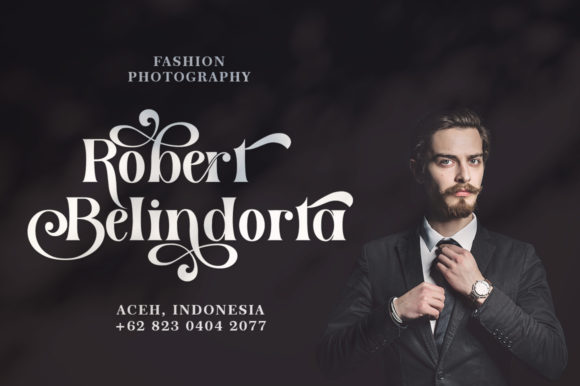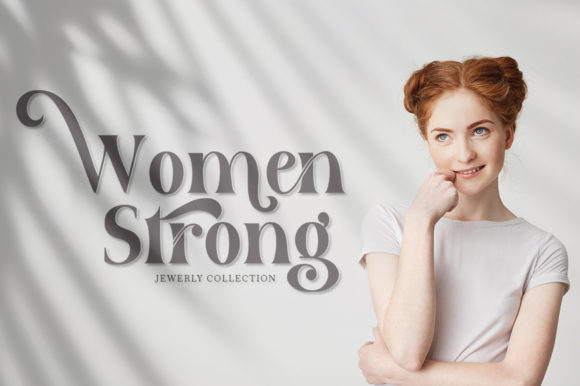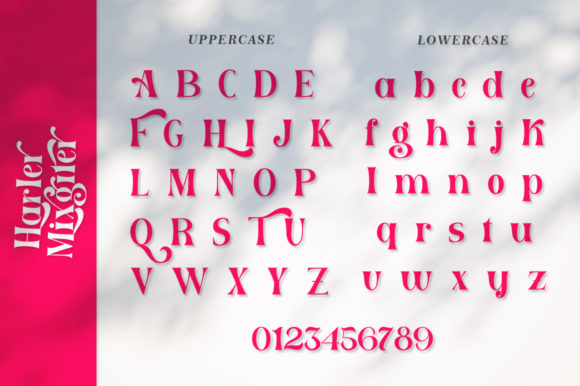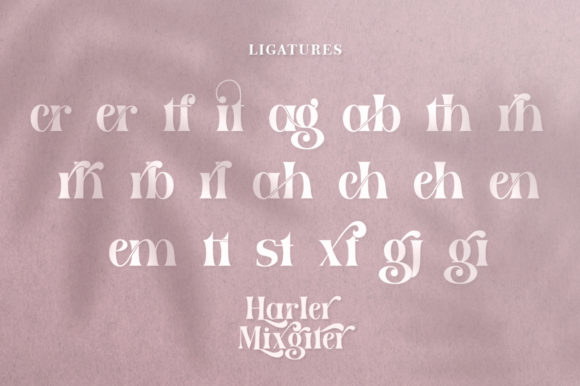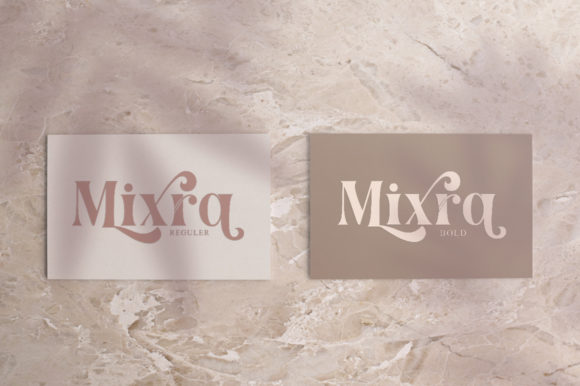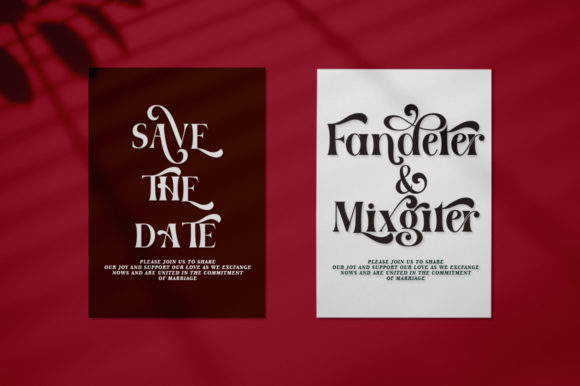
Introducing Harler Mixgiter Font: A Charming Serif Typeface for Romantic Designs
Are you a designer or crafter looking for a font that exudes classic romance and sophistication? Look no further than Harler Mixgiter Font! This beautiful serif typeface is inspired by traditional romance fonts, making it perfect for a variety of design projects, from headlines and invitations to logos and wedding materials.
What Makes Harler Mixgiter Font Special?
Harler Mixgiter Font is a unique and charming typeface that boasts a range of distinctive features. Its serif design gives it a classic, timeless feel that’s perfect for creating elegant and sophisticated designs. The font’s intricate details and ornate flourishes add a touch of romance and whimsy, making it ideal for projects that require a personal and emotional touch.
Harler Mixgiter Font is an incredibly versatile typeface that can be used for a wide range of design projects. Here are just a few ideas to get you started:
• Headlines: Use Harler Mixgiter Font to create eye-catching headlines that add a touch of elegance and sophistication to your designs.
• Invitations: Whether you’re designing wedding invitations, party invites, or formal event announcements, Harler Mixgiter Font is the perfect choice.
• Logos: Create a lasting impression with a custom logo that features Harler Mixgiter Font. This typeface is sure to help your brand stand out from the crowd.
• Weddings: Harler Mixgiter Font is a popular choice for wedding designs, including wedding invitations, ceremony programs, and wedding stationery.
Why Designers and Crafters Love Harler Mixgiter Font
So, what makes Harler Mixgiter Font so popular among designers and crafters? Here are just a few reasons:
• Unique and distinctive: Harler Mixgiter Font is a one-of-a-kind typeface that’s sure to add a touch of personality to your designs.
• Elegant and sophisticated: This font’s classic serif design and intricate details make it perfect for creating elegant and sophisticated designs.
• Highly versatile: Harler Mixgiter Font can be used for a wide range of design projects, from print materials to digital designs.
• Easy to read: Despite its ornate details, Harler Mixgiter Font is highly legible, making it perfect for body text and headlines.
Tips for Using Harler Mixgiter Font
To get the most out of Harler Mixgiter Font, here are a few tips to keep in mind:
• Use it sparingly: While Harler Mixgiter Font is beautiful, it’s best used sparingly to avoid overwhelming your design. Use it for headlines, titles, or key phrases to add emphasis and create visual interest.
• Pair it with a simple font: To create visual contrast, pair Harler Mixgiter Font with a simple, sans-serif font for body text.
• Experiment with colors: Harler Mixgiter Font looks stunning in a range of colors, from rich jewel tones to soft pastels. Experiment with different colors to find the perfect look for your design.
Font Name Harler Mixgiter Font
Harler Mixgiter Font is a charming serif typeface that’s perfect for designers and crafters looking to add a touch of classic romance to their designs. With its intricate details, ornate flourishes, and elegant design, this font is sure to become a favorite in your design arsenal. Whether you’re creating headlines, invitations, logos, or wedding materials, Harler Mixgiter Font is the perfect choice.